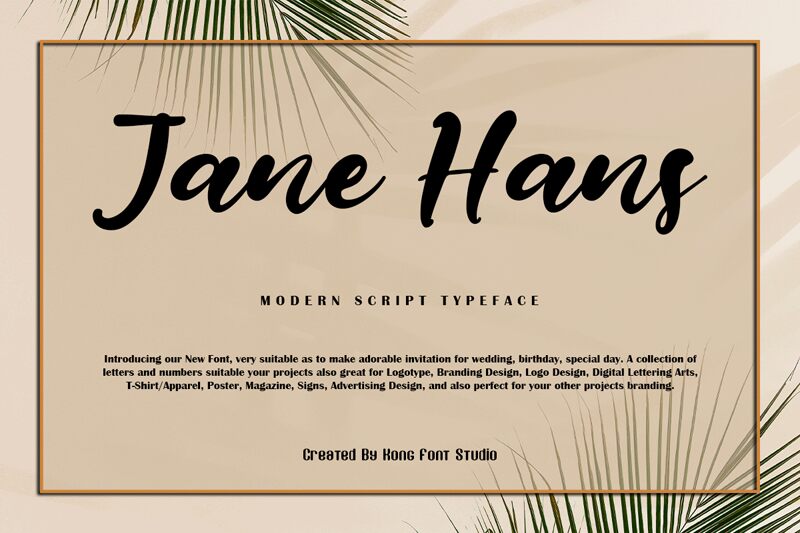
Jane Hans
Jane Hans, the modern script semi-bold font designed by Kong Font, is the perfect typeface for creative projects that require a touch of elegance and sophistication. Its flowing lines and graceful curves make it suitable for wedding invitations, fashion magazines, and luxury branding. With its unique character set, Jane Hans can also be used in logo design or on websites where a personalized touch is essential. This font will elevate any project with its chic and refined style, making it a must-have for designers seeking to make a statement.